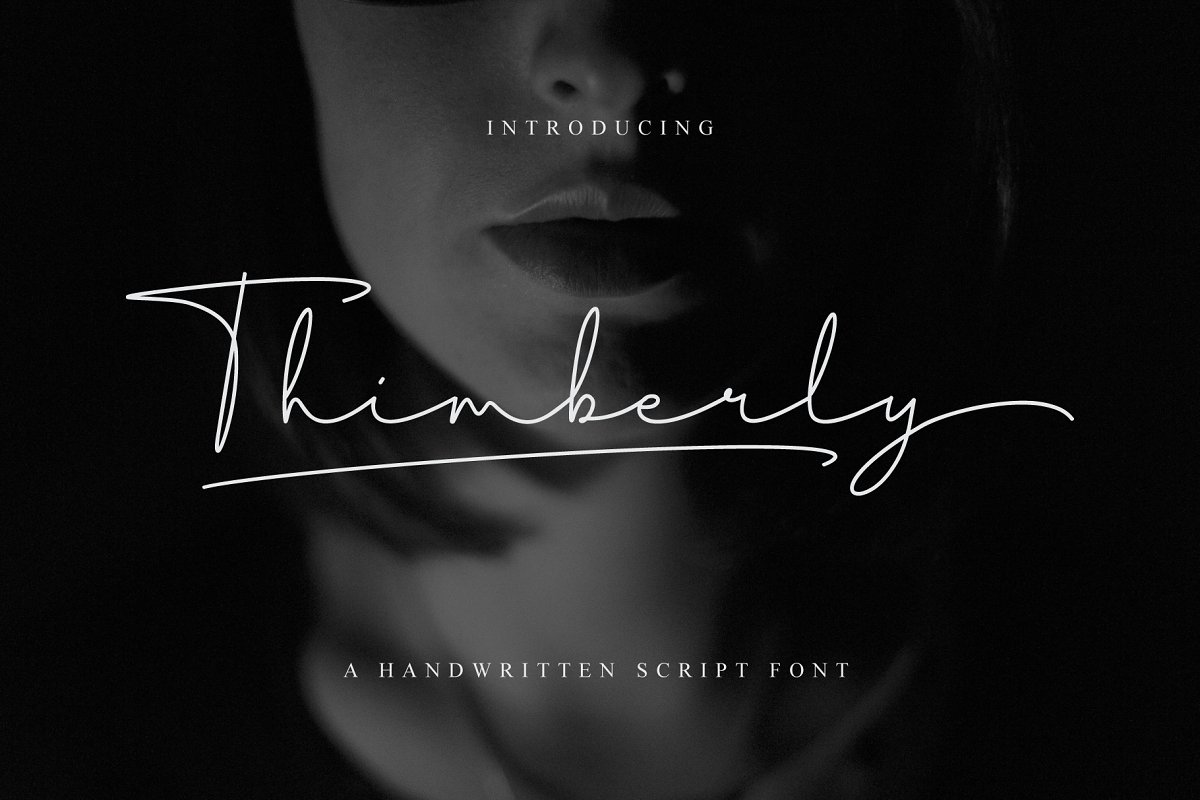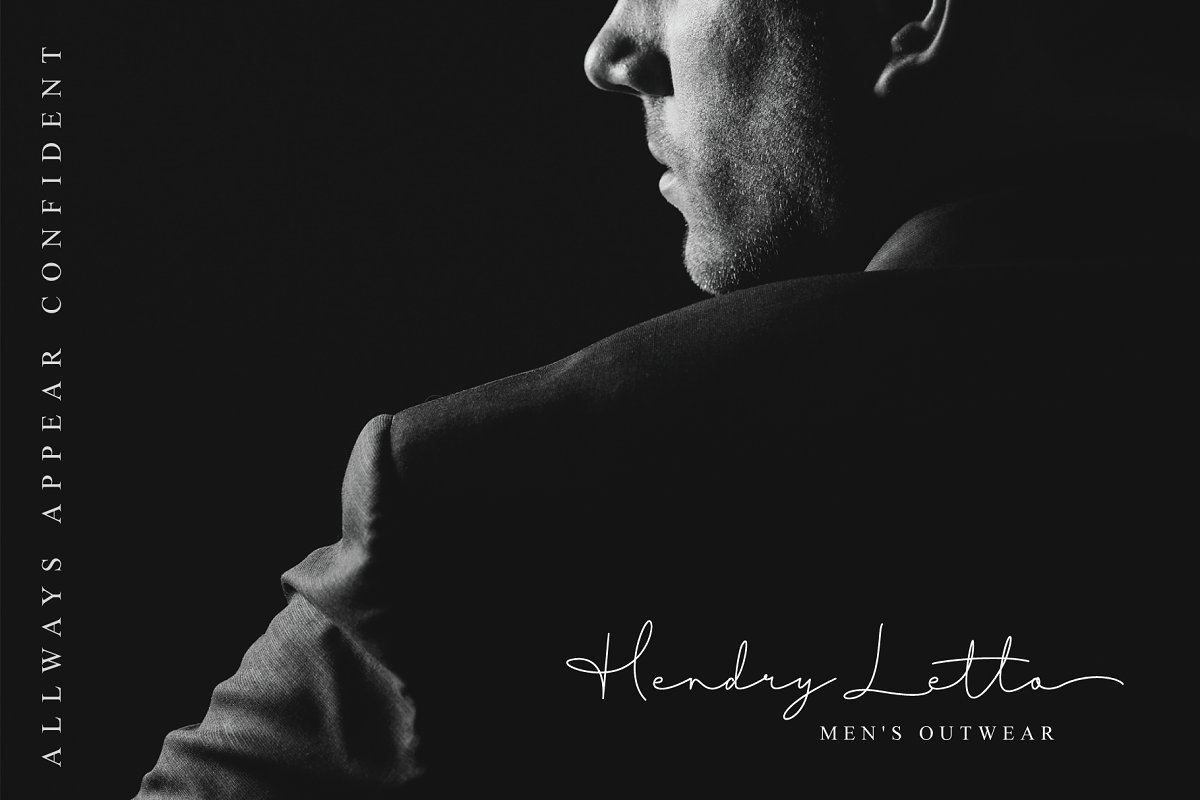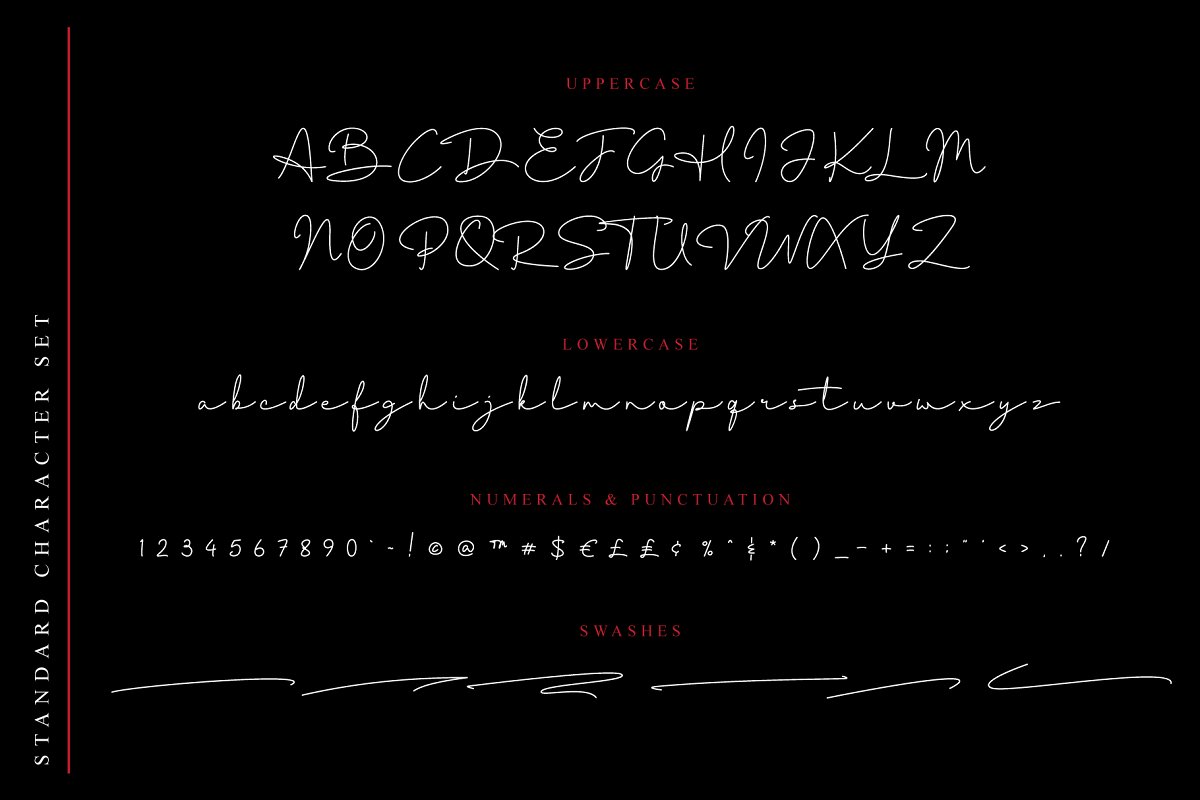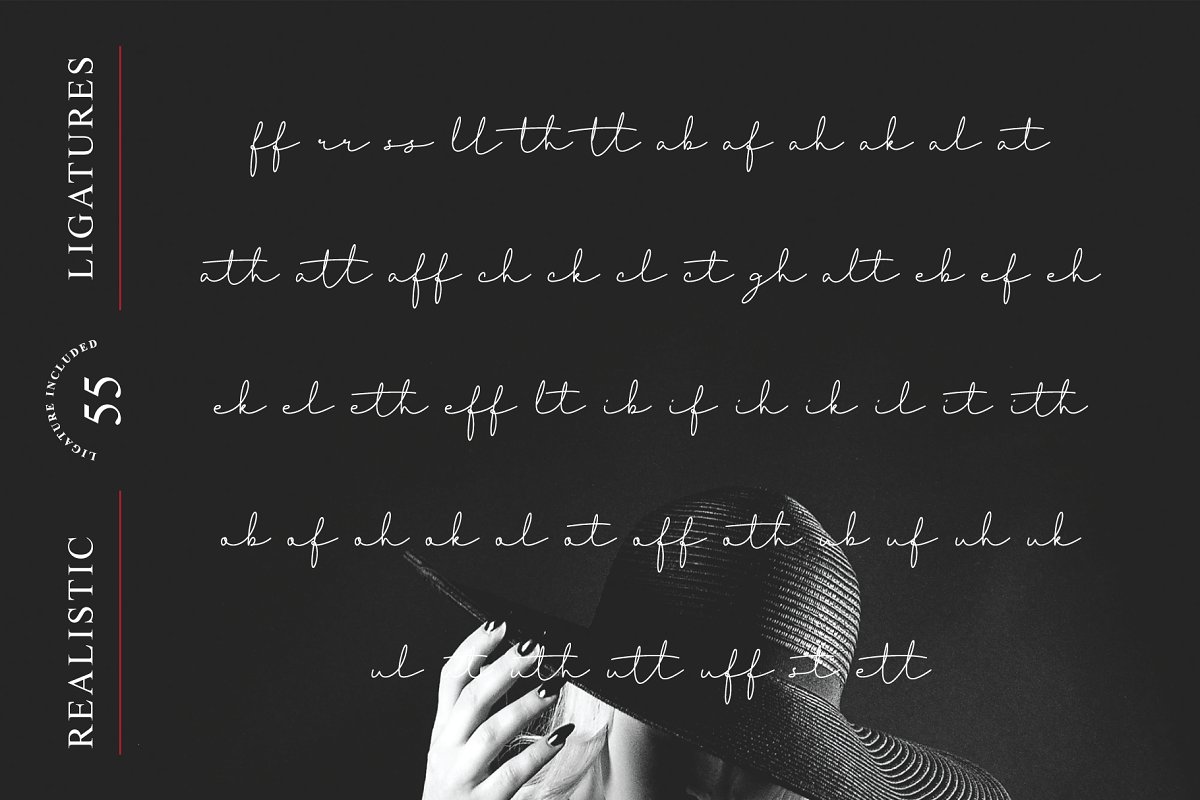
About the Thimberly Font
Thimberly is a modern and awesome handwriting font with extraordinary charm, This will change any design idea to be beautiful and perfect! Can be used as a logo, branding, or just writing, It supports multilingual languages, which you can combine into great designs, What’s Included?Thimberly TTFThimberly OTFThimberly WOFFMore than 420 of glyphsSimple InstallationsAccessible in the Adobe Illustrator, Adobe Photoshop, Adobe InDesign, CorelDraw, even work on Microsoft Word